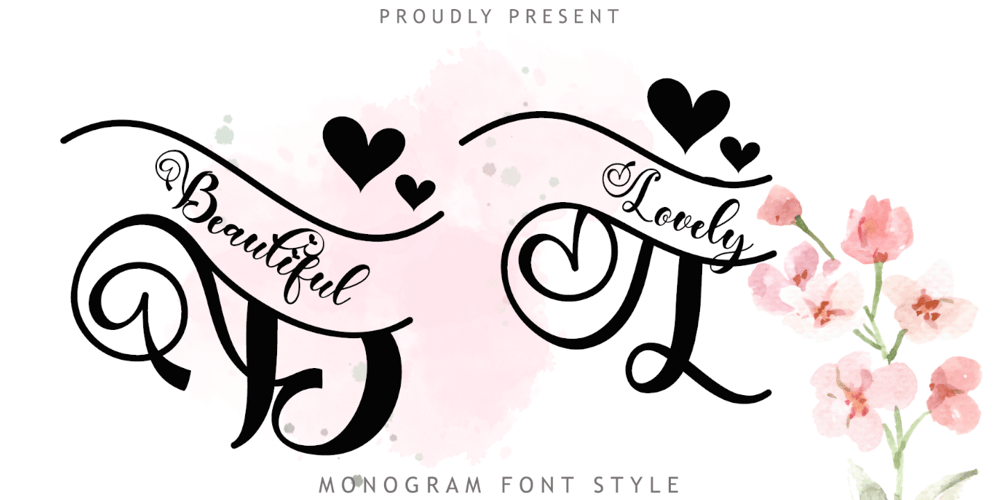
Beautiful Lovely Style Font Family was designed by Isroni Yoga Prasetya and published by Yoga Letter. Beautiful Lovely Style contains 2 styles and family package options. “Beautiful Lovely Monogram” is a beautiful monogram font. It comes with capital letters, lowercase letters, numbers, punctuation, and multilingual support. It is perfect for wedding, birthday, valentine, thanksgiving, invitation, photography, holiday, print, banner, poster, and more.